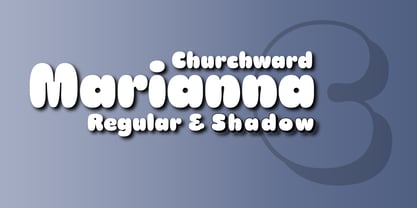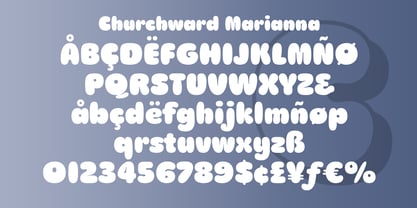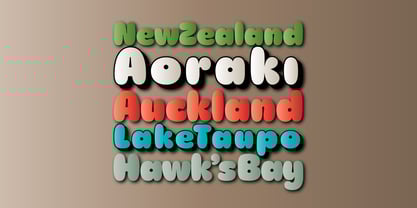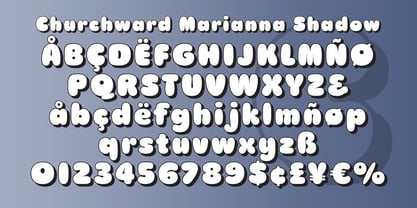
Churchward Marianna™
by BluHead Studio
The Churchward Marianna Font Family was designed by Joseph Churchward and published by BluHead Studio. Churchward Marianna contains 2 styles and family package options.
Churchward Marianna and Churchward Marianna Shadow were created back in 1969 by the late Joseph Churchward. Strictly a display typeface, the round, bulbous letterforms take on individual personalities of their own. Churchward Marianna was widely popular in the photo-lettering era where it could be found on albums covers, posters and even board game boxes. These fonts have a lot of life left in them and can't wait to express humor, spunk and just plain bold fun! Both fonts support an extended Western European character set.
Designers: Joseph Churchward
Publisher: BluHead Studio
Foundry: BluHead Studio
Design Owner: BluHead Studio